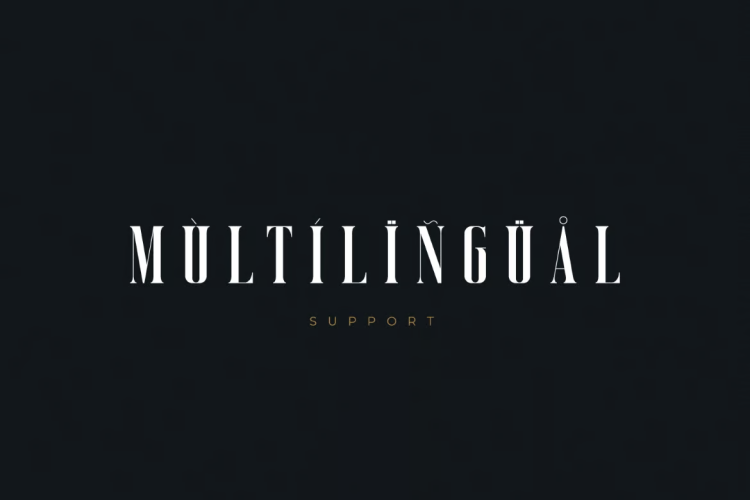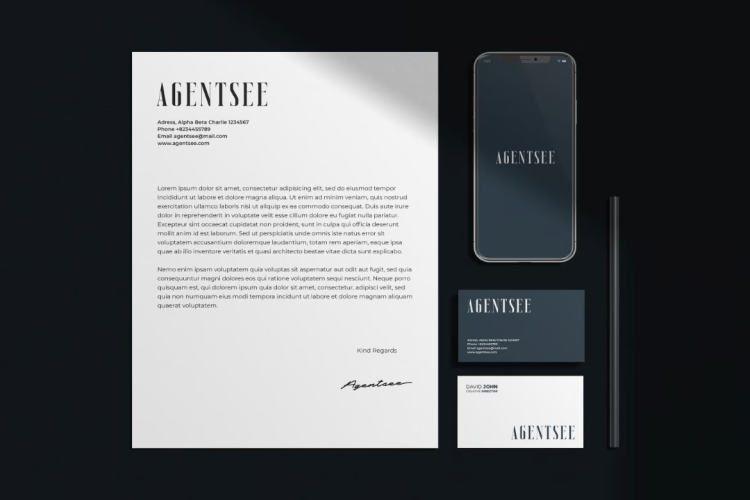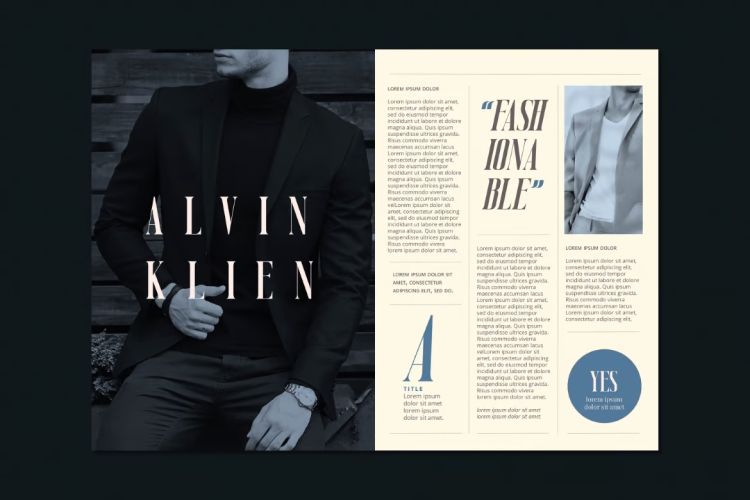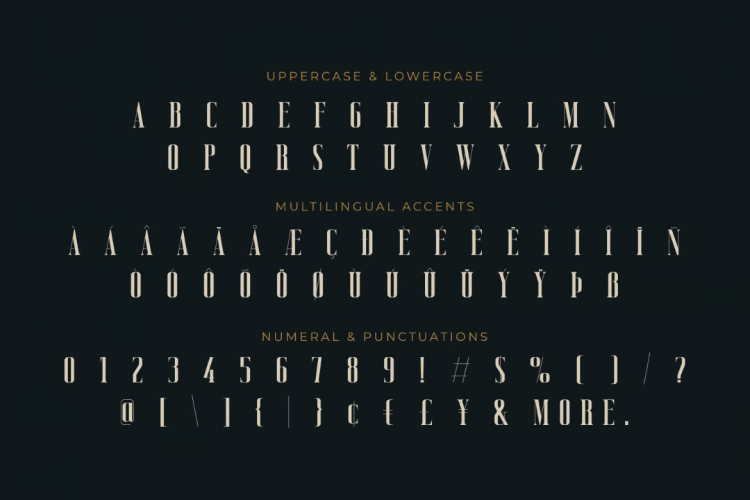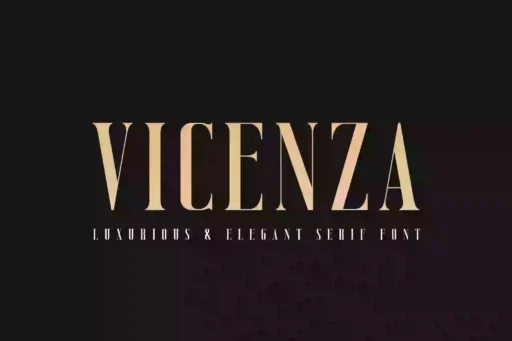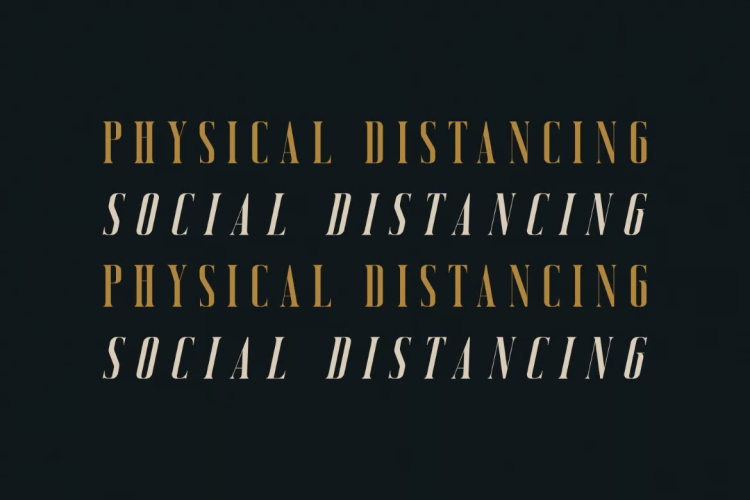
Vicenza Font
Vicenza is a luxury sans serif font with a stylish touch that was inspired by the famous minimalist name. It comes in two styles, regular and italic, and can be used to…
Vicenza is a luxury sans serif font with a stylish touch that was inspired by the famous minimalist name. It comes in two styles, regular and italic, and can be used to make templates, brochures, videos, advertising branding, logos, and more.
Where Vicenza Font works best
Vicenza Font gives long-form text a classic, trustworthy rhythm — ideal for magazine spreads, annual reports and book interiors.
Pair Vicenza Font with generous letter-spacing for wordmarks in fashion, hospitality, wine and jewellery branding.
Use Vicenza Font for slide titles in Keynote, PowerPoint or Google Slides to add authority without looking dated.
What is Vicenza Font good for?
Vicenza Font is a Serif Fonts typeface tagged Branding, Minimalist, Serif, Serif Fonts. It works well for headlines, logos, posters, social media graphics and branding projects that need a distinctive serif fonts look.